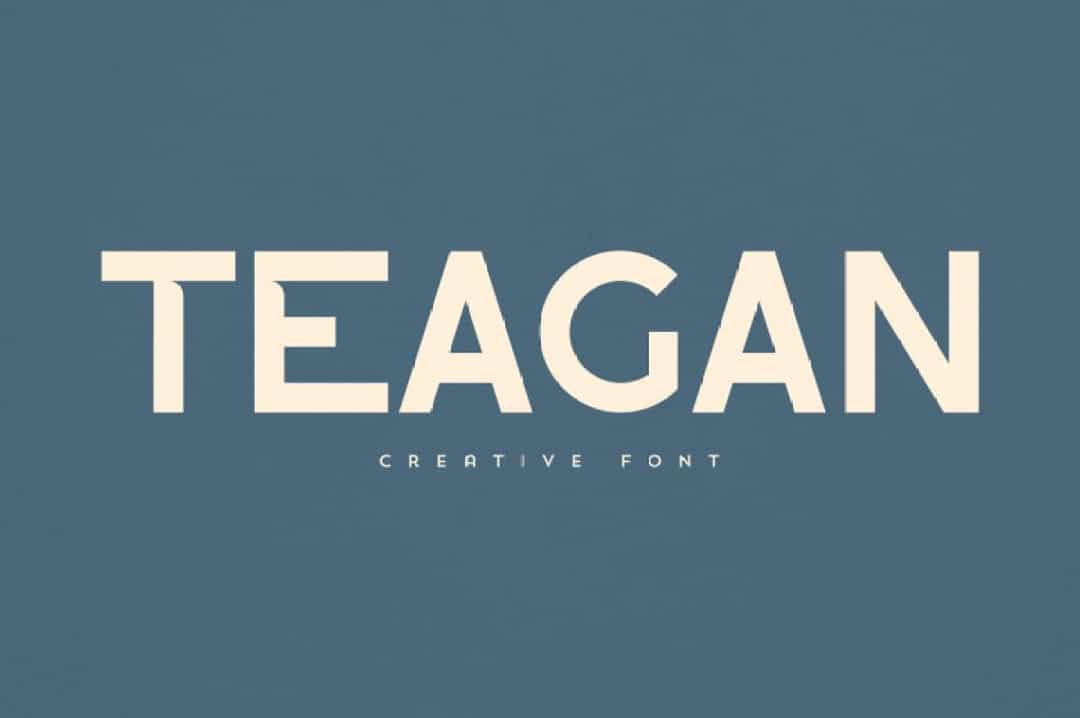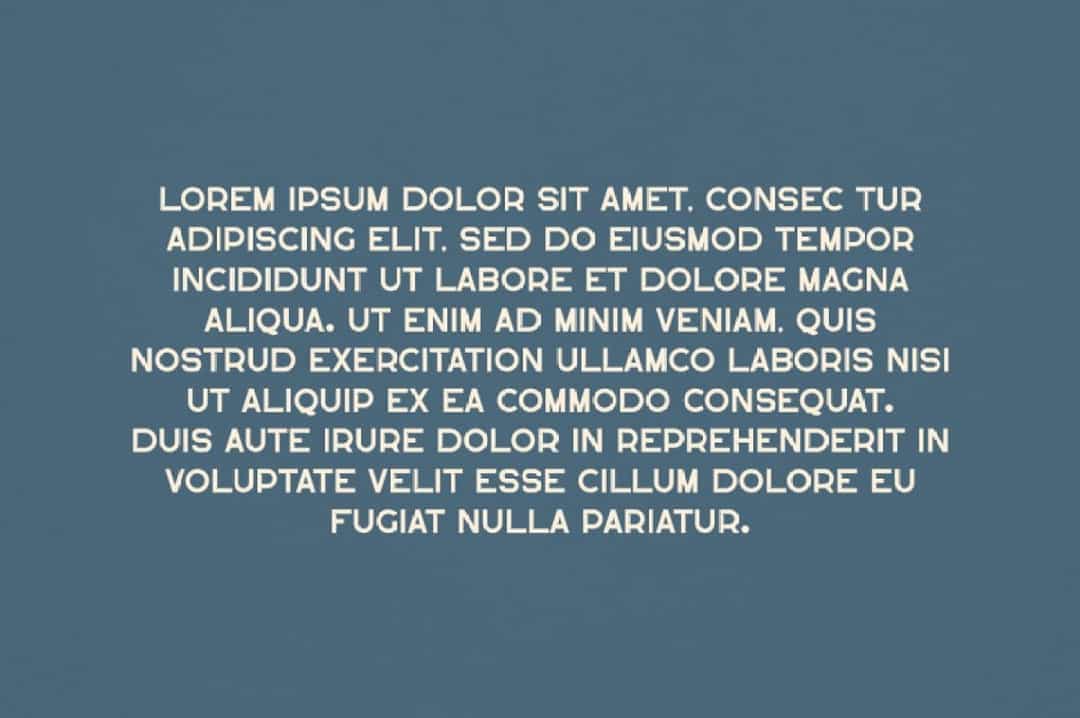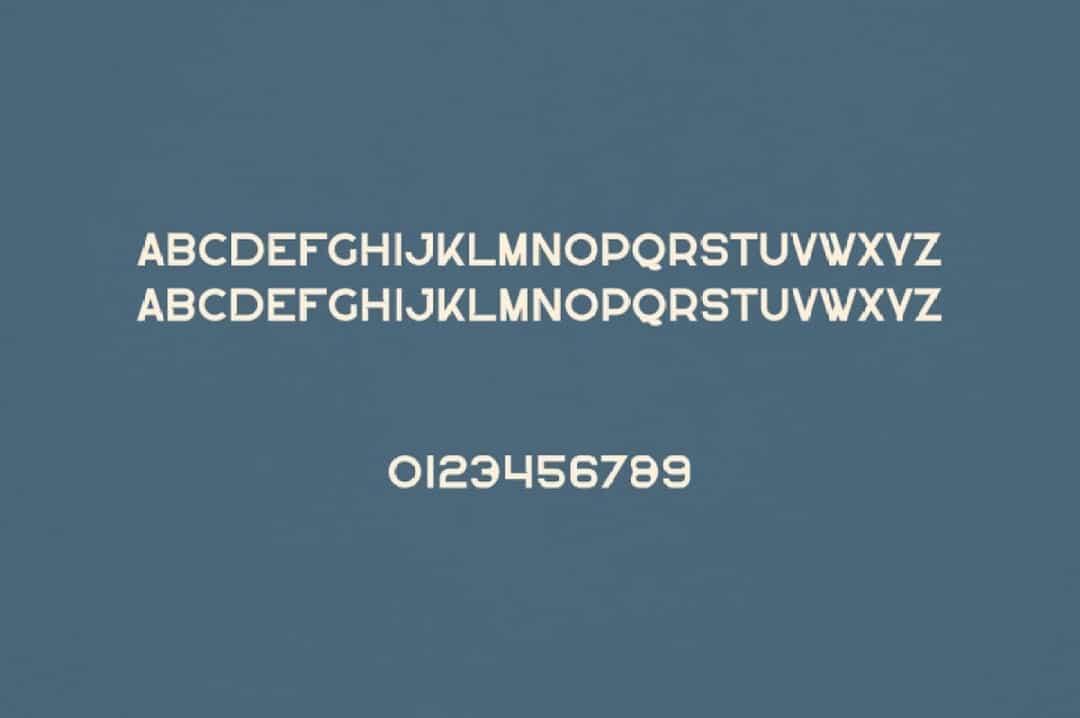
Teagan can be described as an elegant and versatile sans serif font which boasts an eye-catching typographical style! Perfect for creating stunning headlines, logos, branding designs or simple text – Teagan is great for home-ware projects, branding designs for products magazines headlines or simply used as an eye-catching text overlay for images!